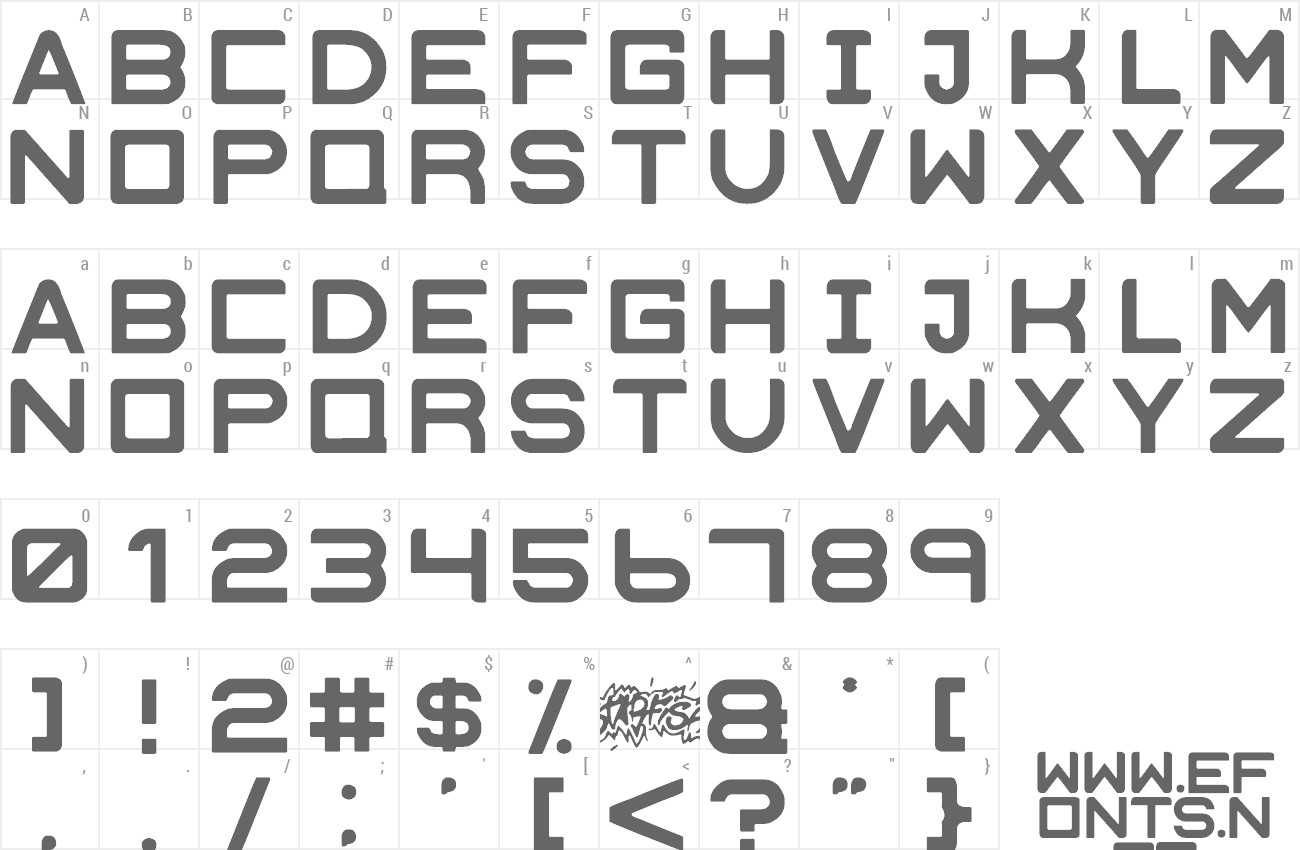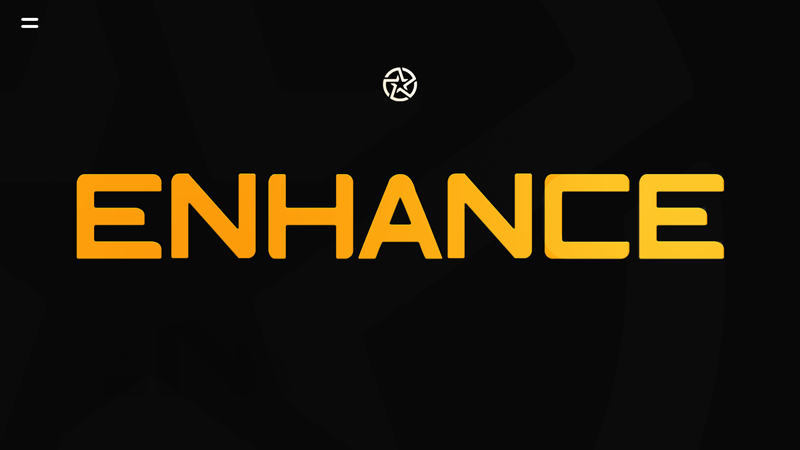
Preview and download Enhance Font. Created by StarFish Designs in Techno Various styles with Free for personal use license.
Enhance is an modern sans-serif typeface. This font does consist of edges that are curved rather then sharp. If you like the font, be sure to follower me on twitter @StarFsihDesignz Do Not Redistribute This font is free for personal and commercial use |